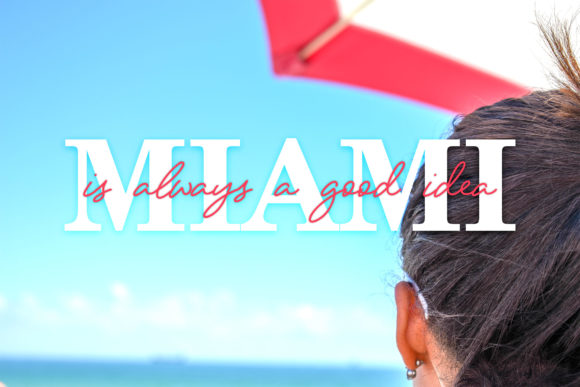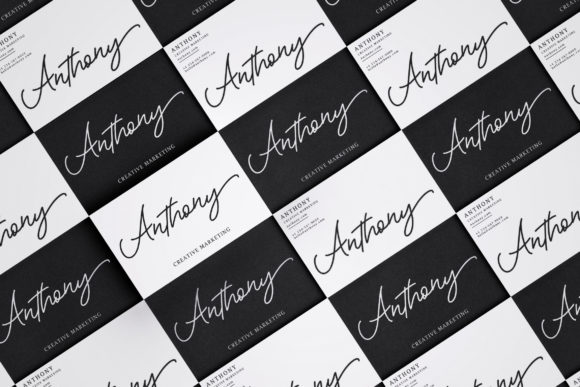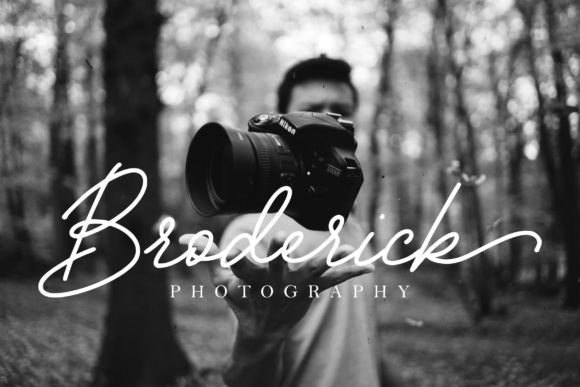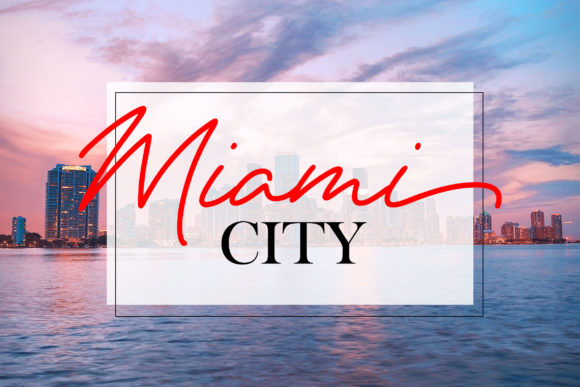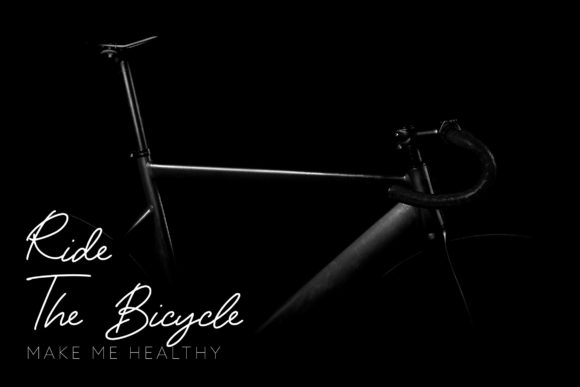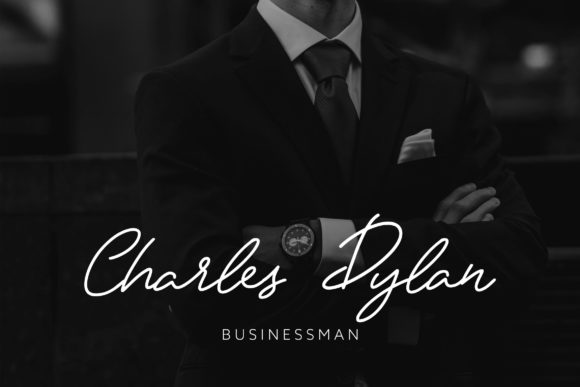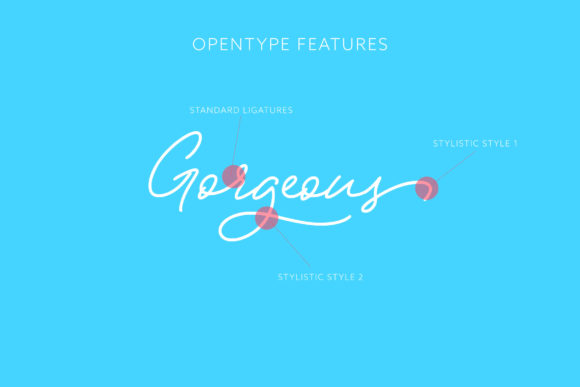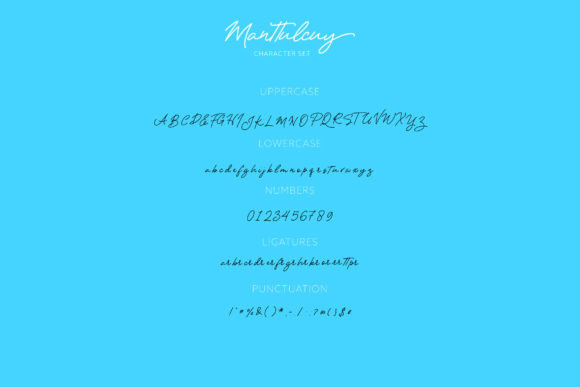
Manttulcuy Font
About Manttulcuy Font
Manttulcuy is a gorgeous signature script that will take any design project to the next level. Get inspired by its unique charm, and turn any design idea into a true standout!